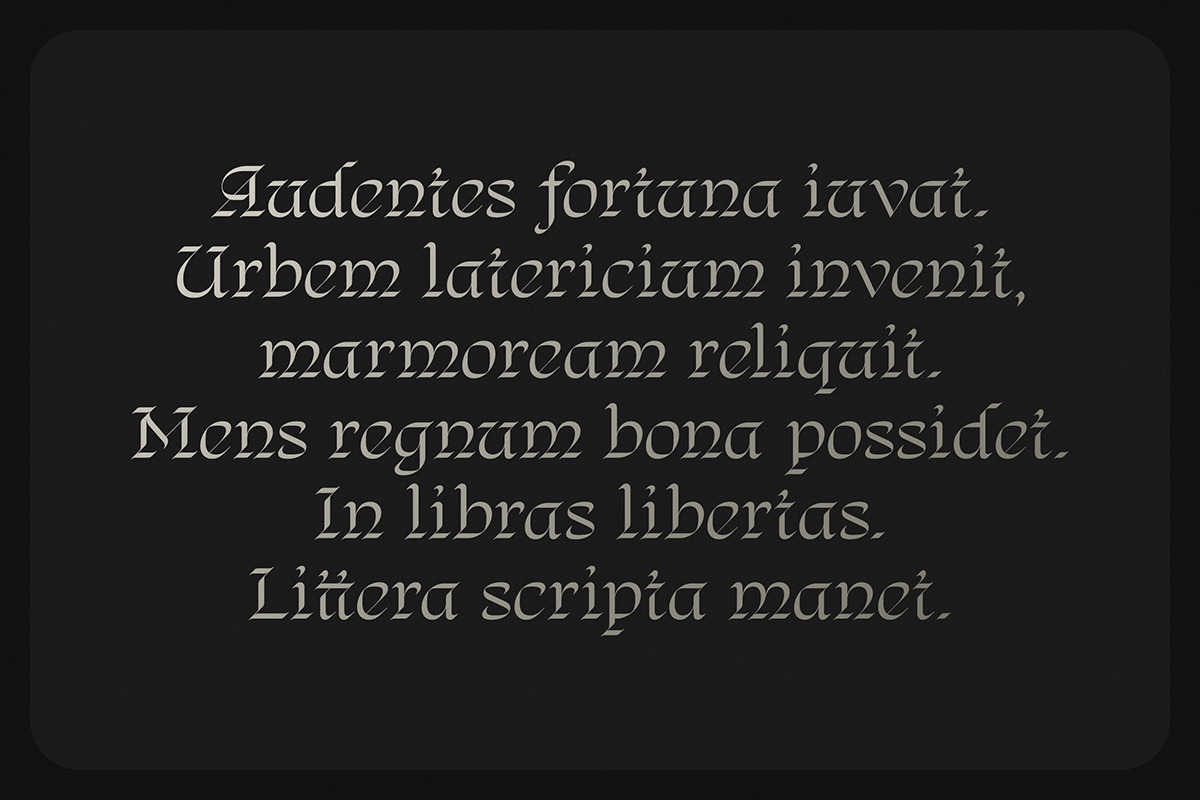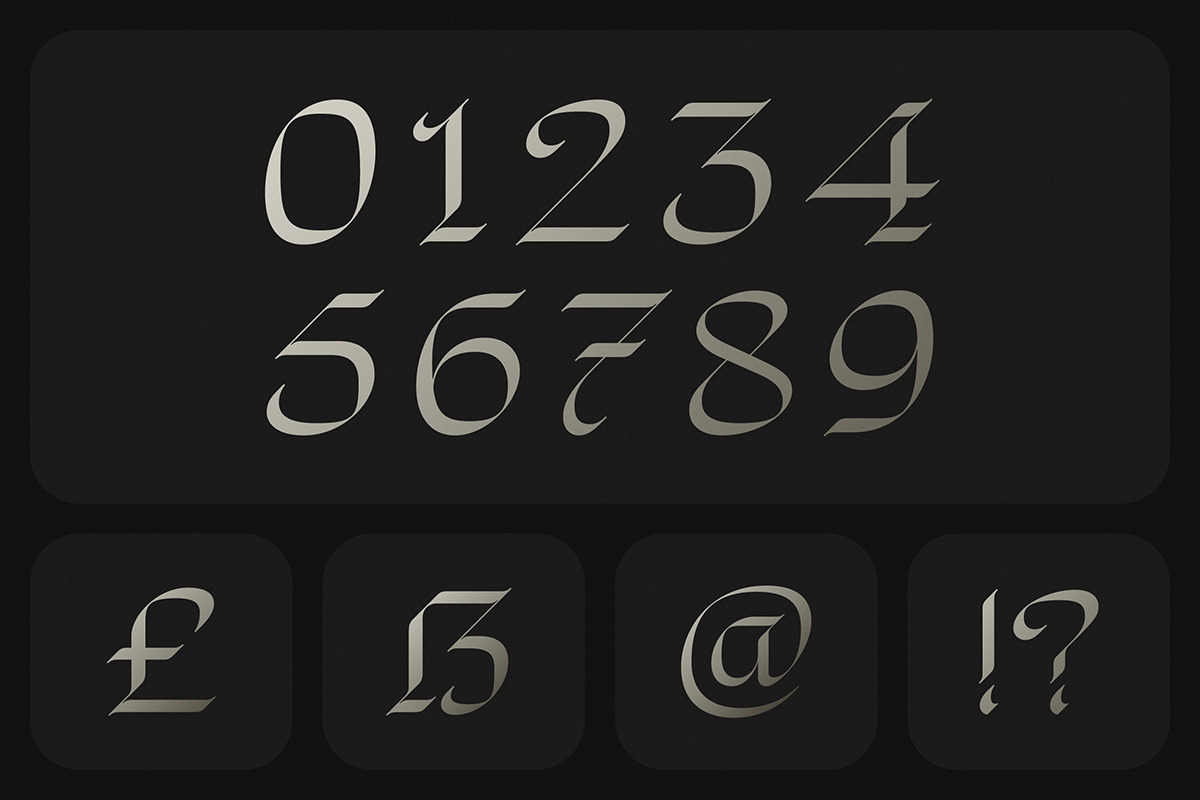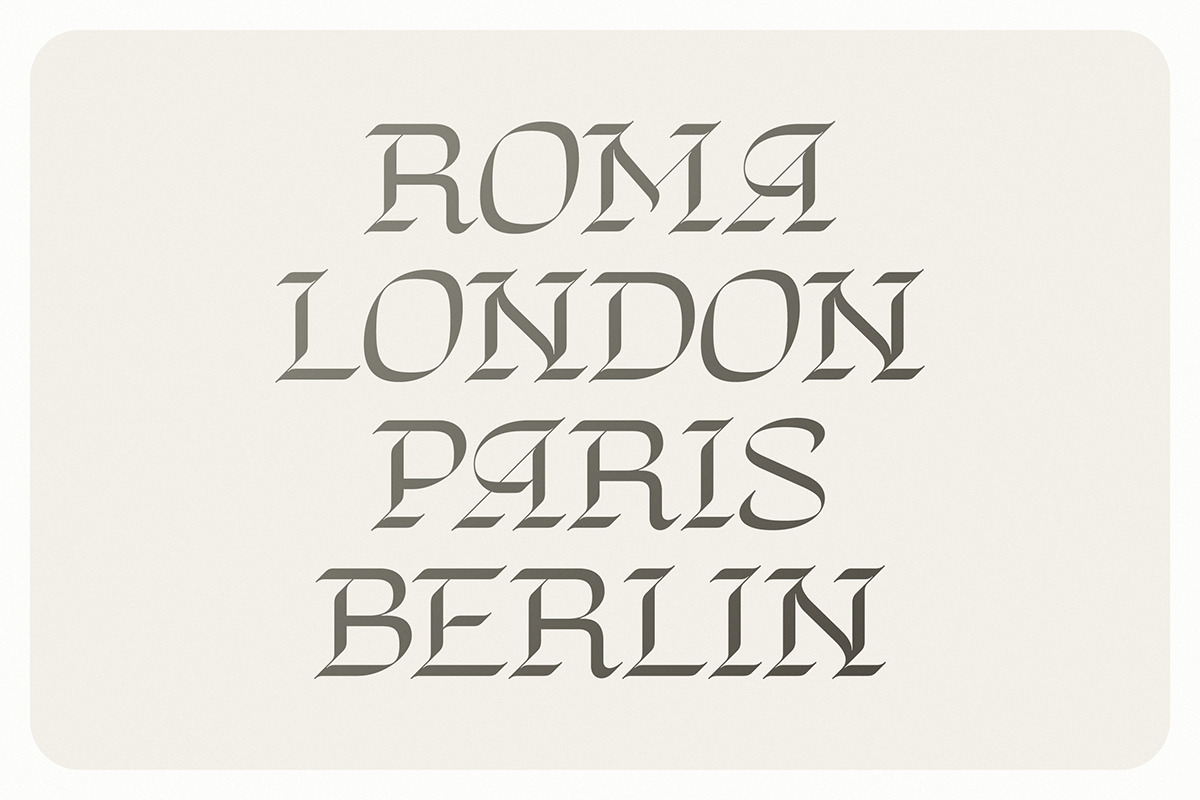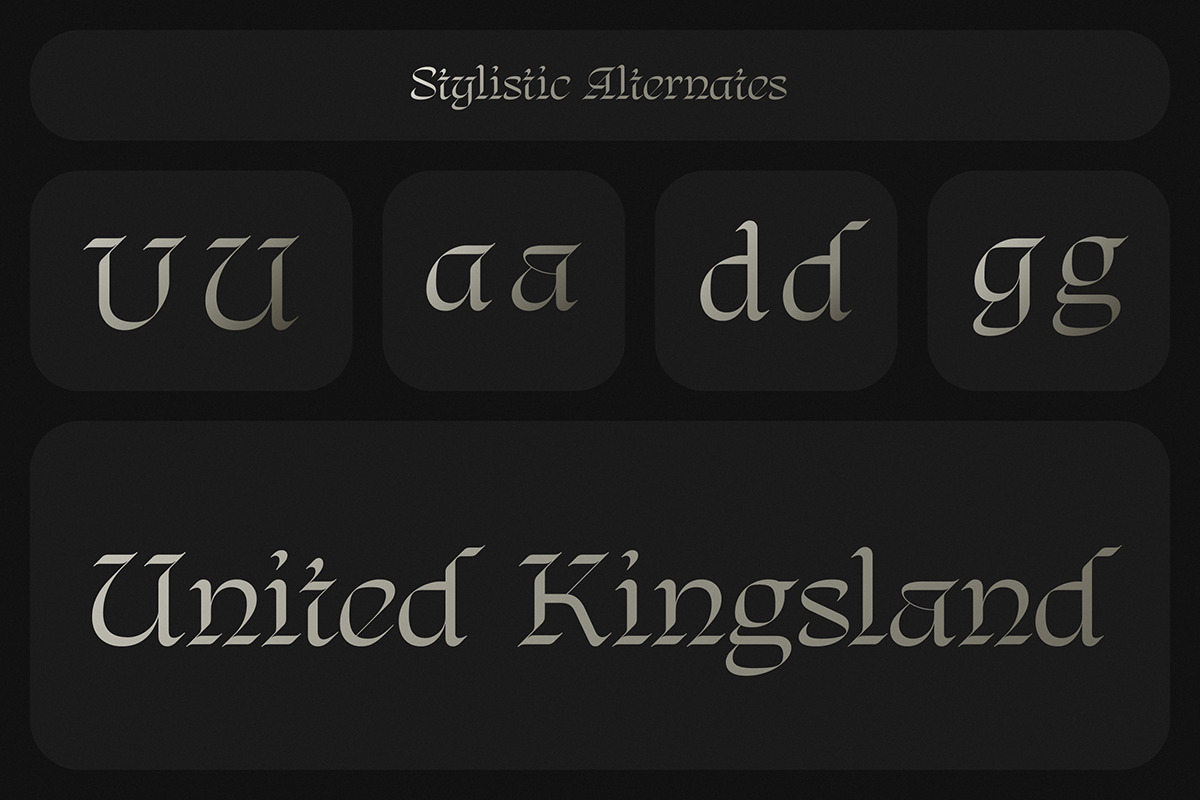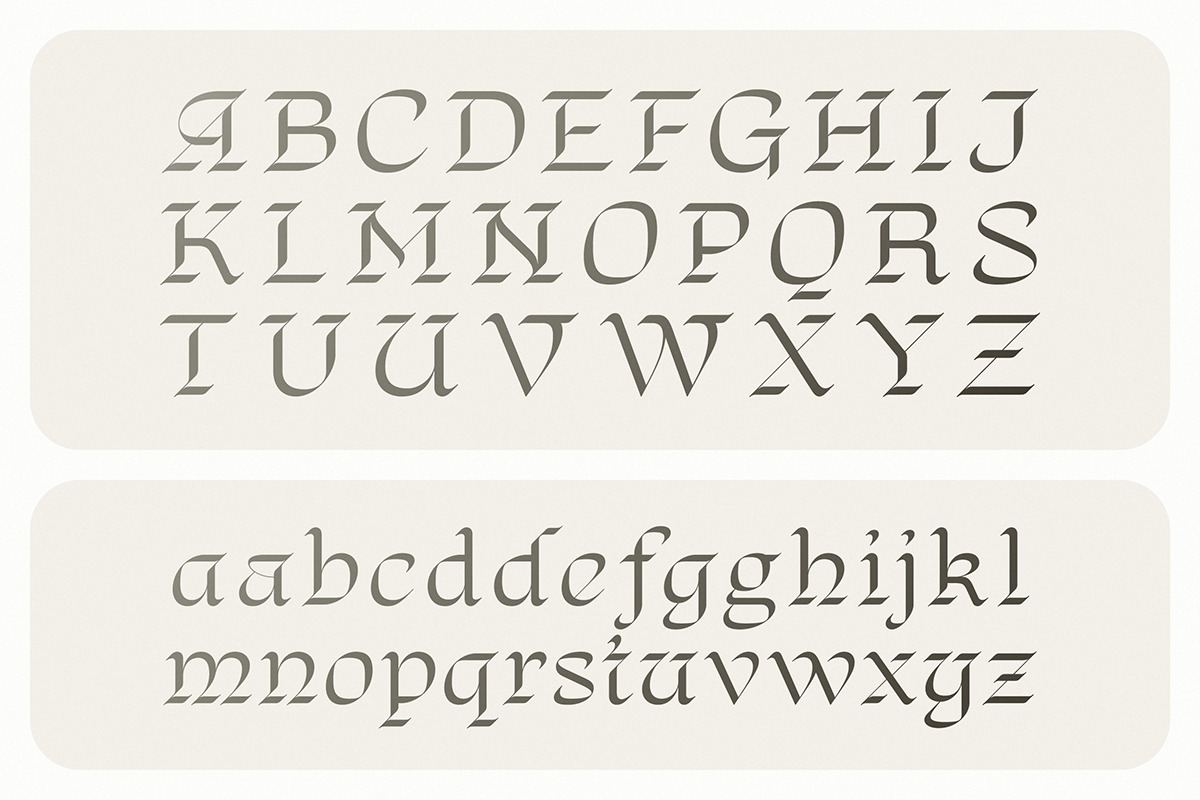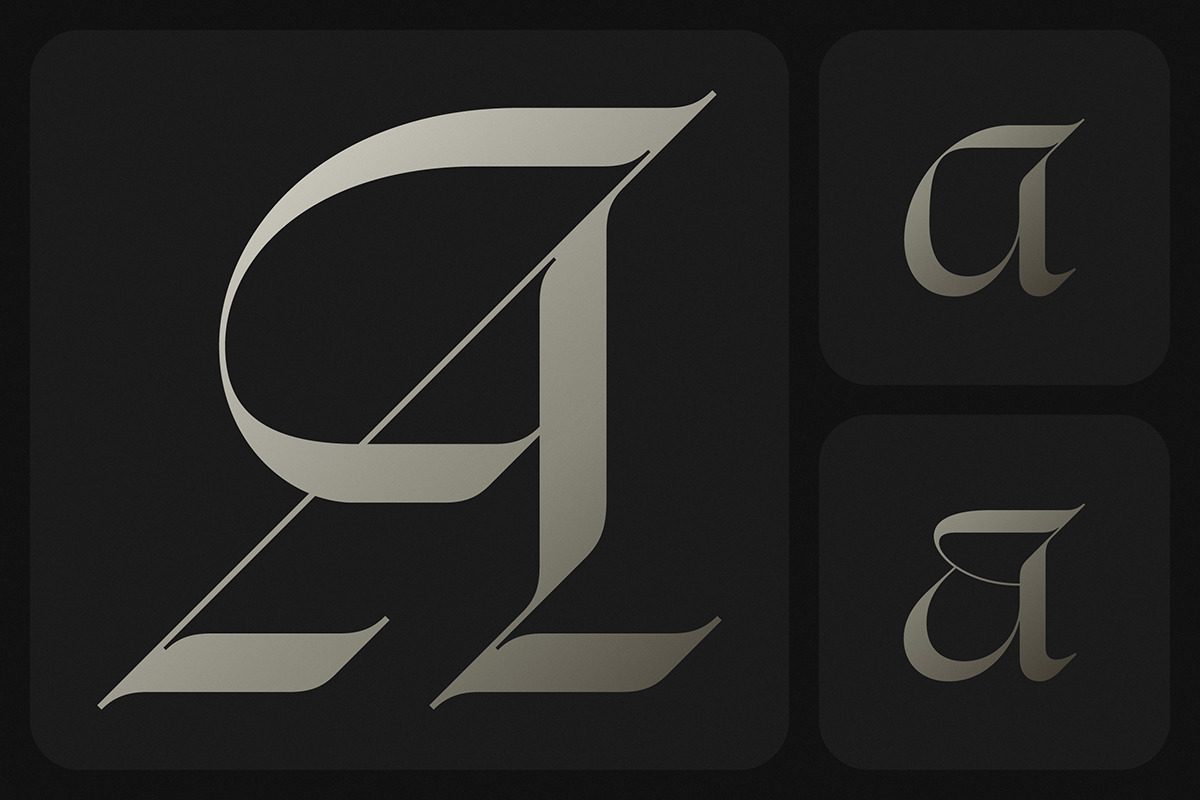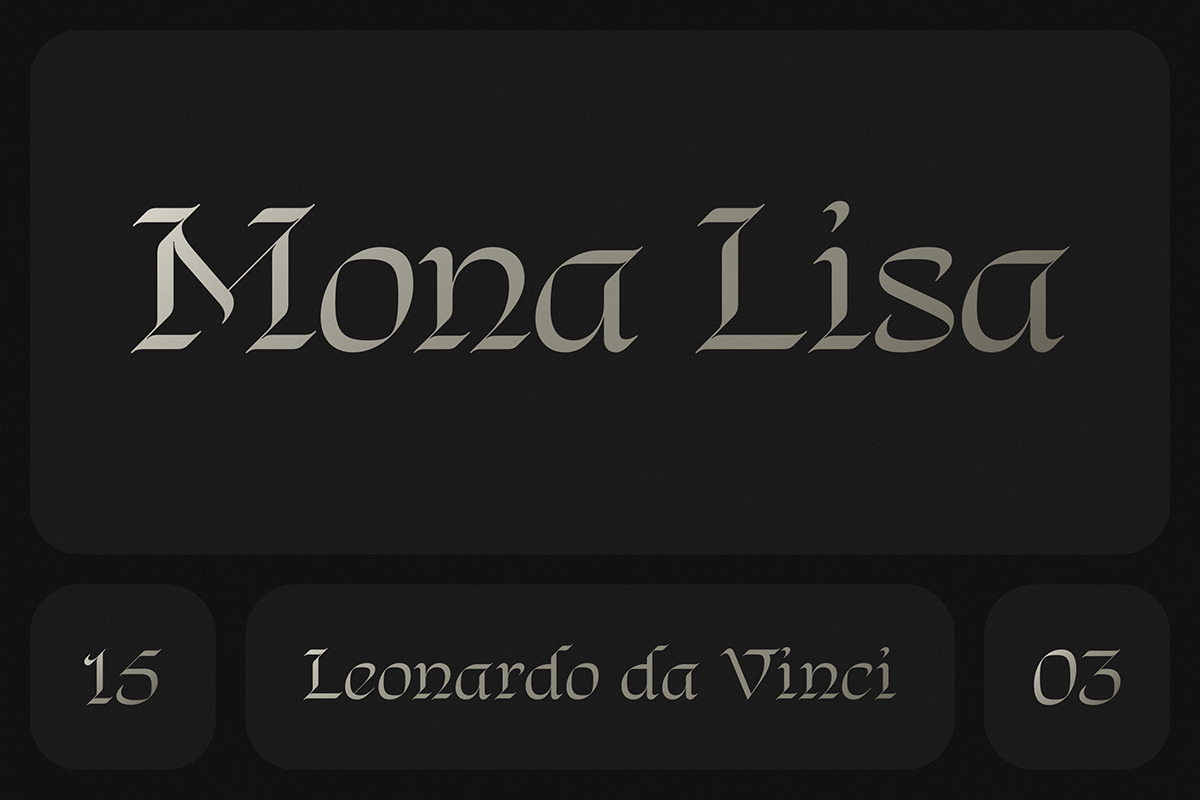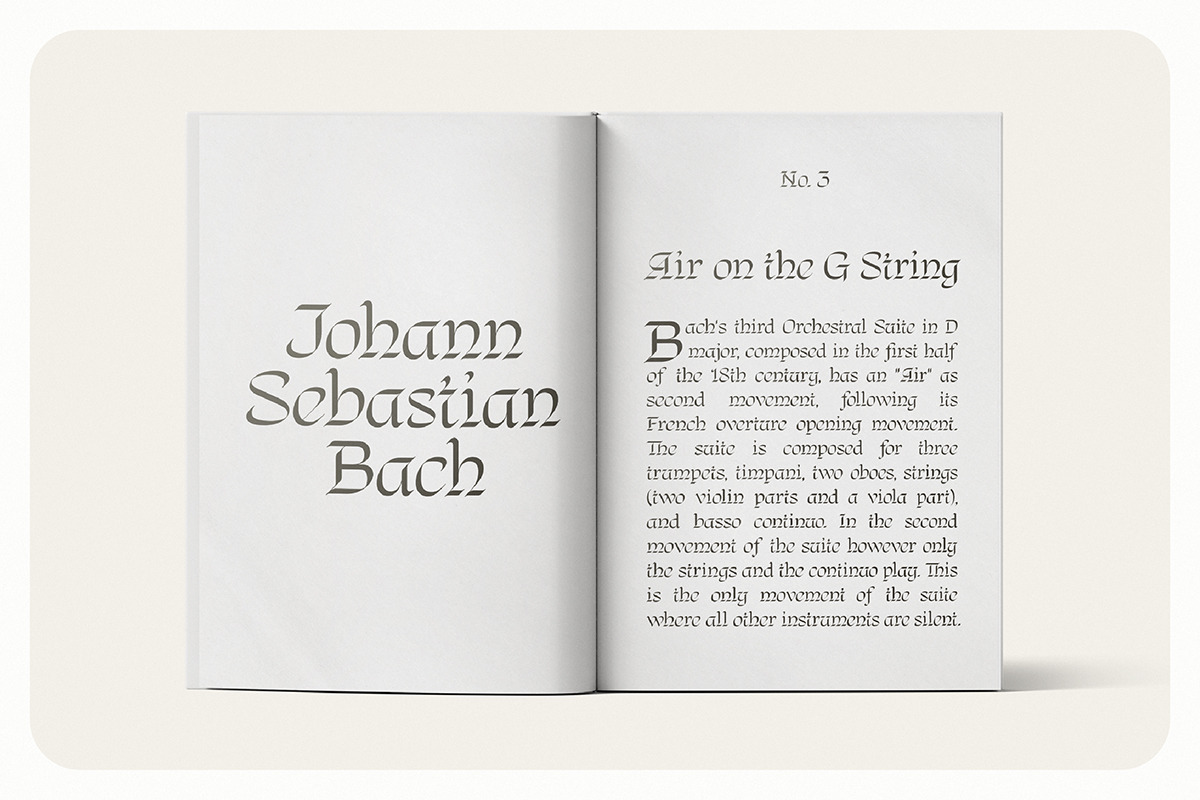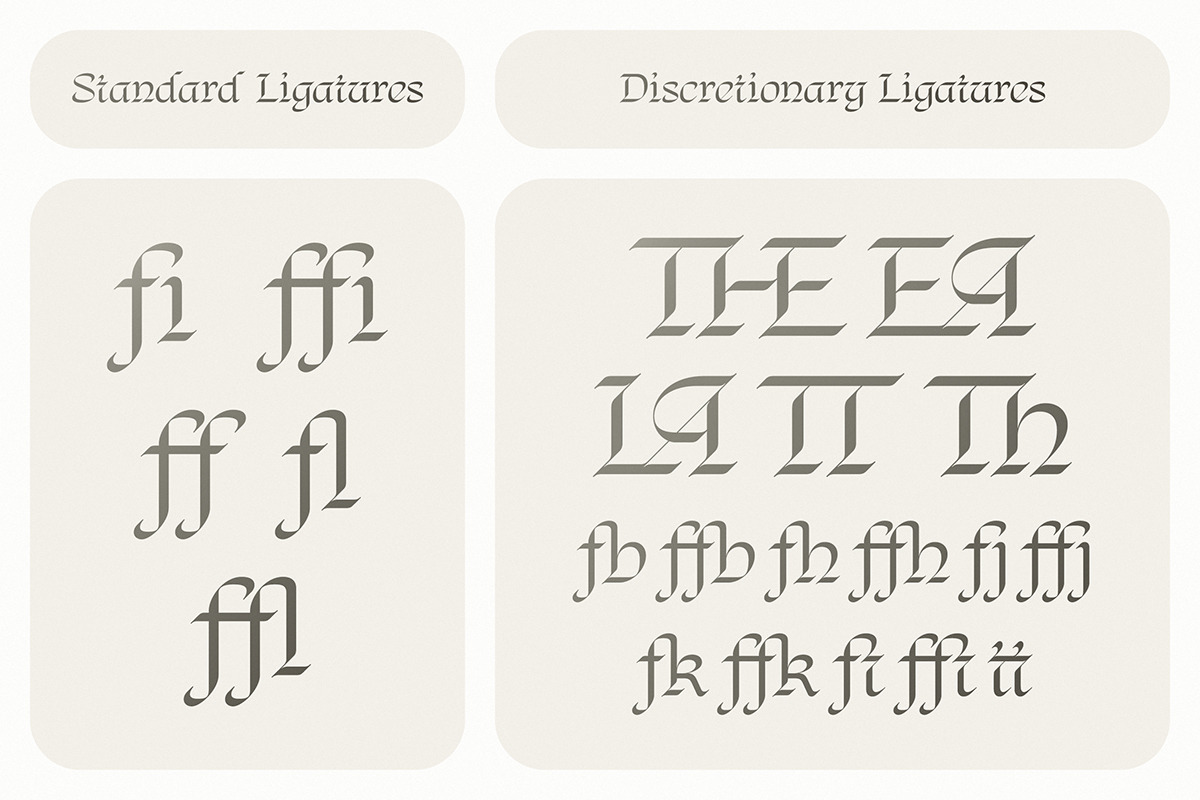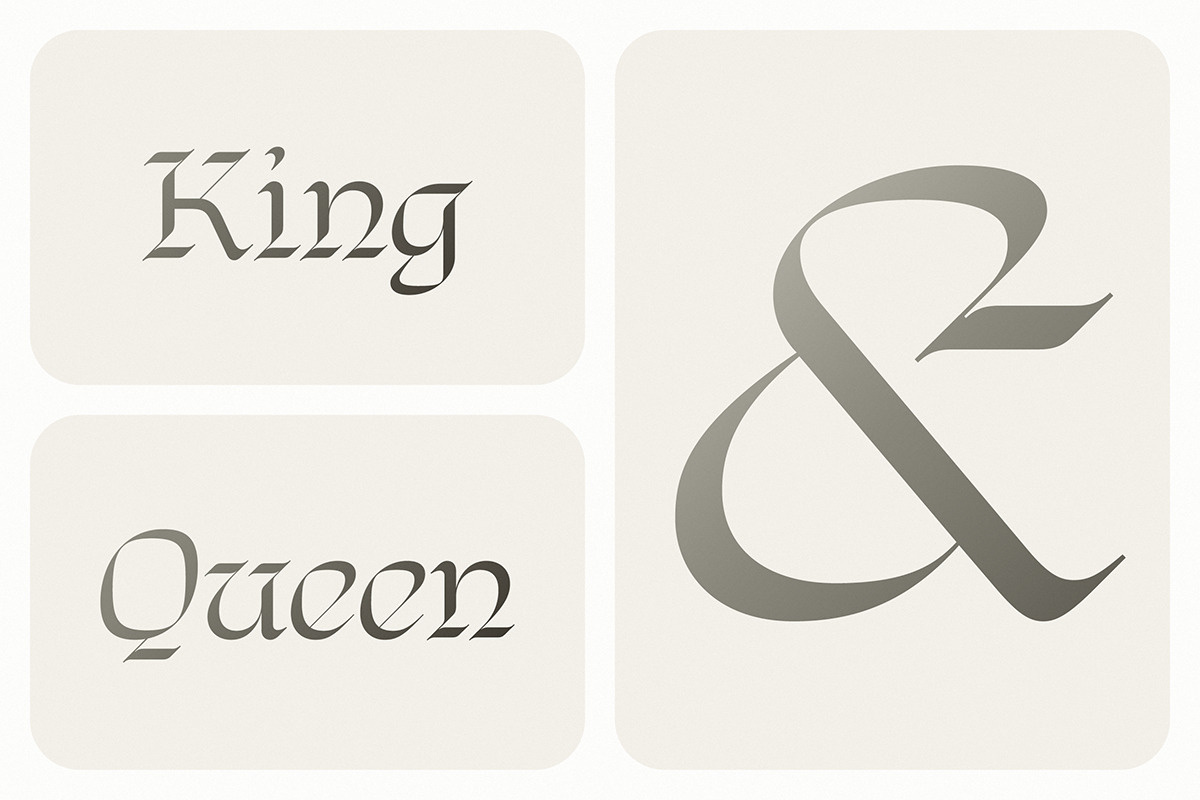
Regnio
Regnio is a contemporary blackletter font that draws inspiration from the exquisite calligraphy of the Renaissance era. While maintaining the historical essence and grandeur of blackletter, Regnio simplifies certain elements for a more modern aesthetic. This typeface is ideal for projects seeking a touch of luxury and timeless beauty. Its bold strokes and intricate details evoke a sense of history and sophistication, making it perfect for branding, logos, advertising, and other display uses where a statement of elegance and class is desired.